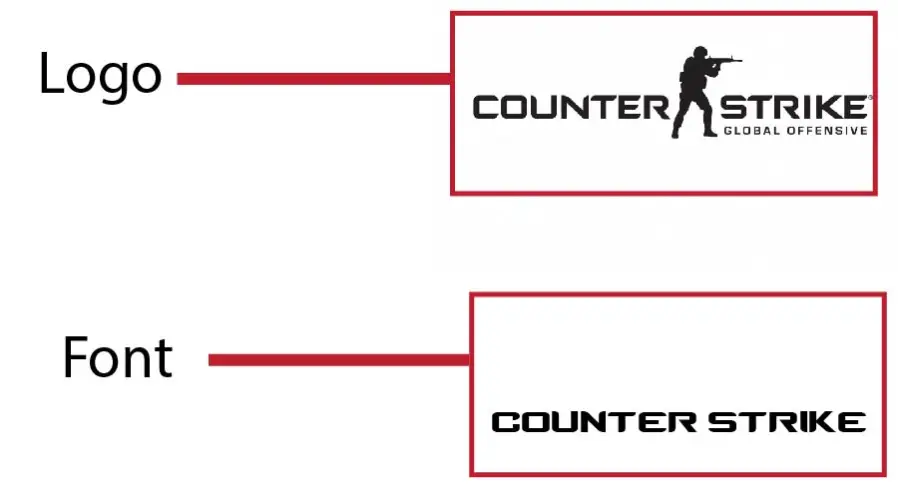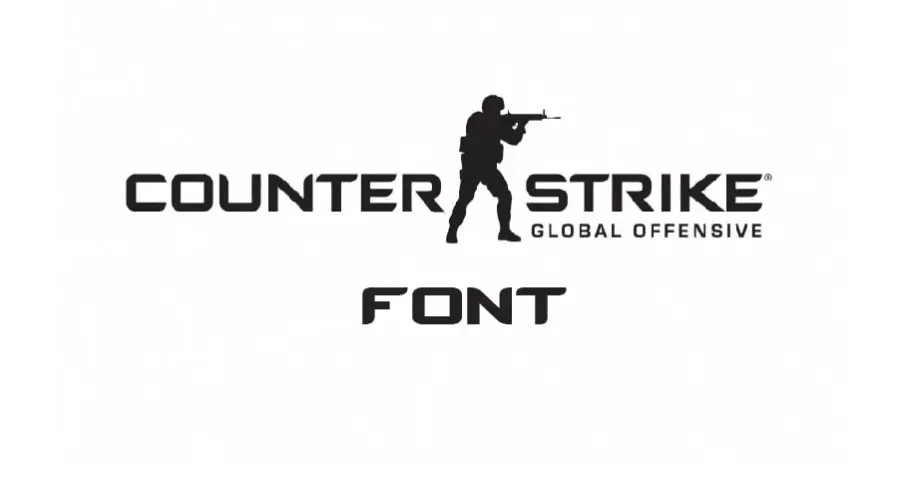
CS Source font refers to the font used in the HUD (heads-up display) of the video game Counter-Strike: Source. Because there is no specific font name associated with it. But the font used there is custom-made specifically for the game. We found two fonts that look similar to it. They are BankGothic Md BT or BankGothic RUSS fonts. BankGothic Md BT is part of the Bank Gothic font family designed by Morris Fuller Benton. The Md BT version was created by Bitstream. While BankGothic RUSS is a Cyrillic version created by ParaType.
You can also try the Counter Strike font, which is based on the Counter Strike logo. It was designed by a fan of the game named SoJa. It includes upper and lowercase numbers, symbols, and latin and cyrillic glyphs. You can also download it for free!
In short, the CS Source font is a custom font for the game Counter-Strike: Source. Similar fonts are BankGothic Md BT, BankGothic RUSS, and Counter Strike.